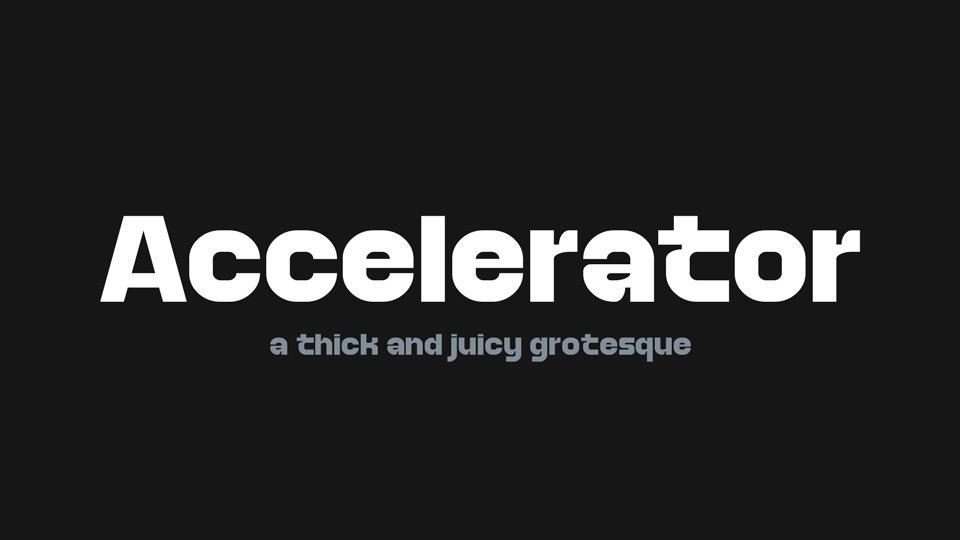
Download Accelerator font, a thick and juicy grotesque with many quirks that appear at larger font sizes. Its unnatural and funky look makes Accelerator font a solid choice for display text on posters, branding and headlines.
Designer: frongile